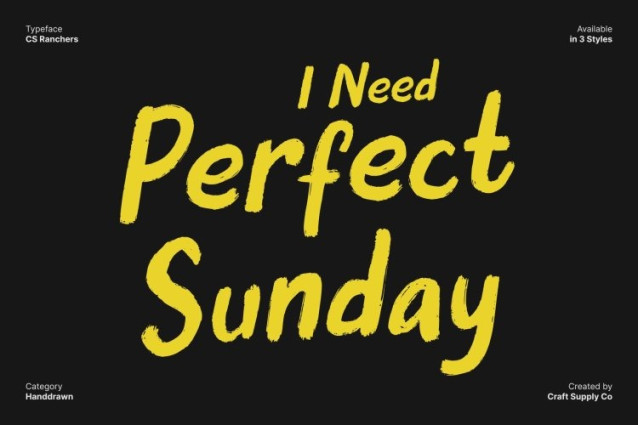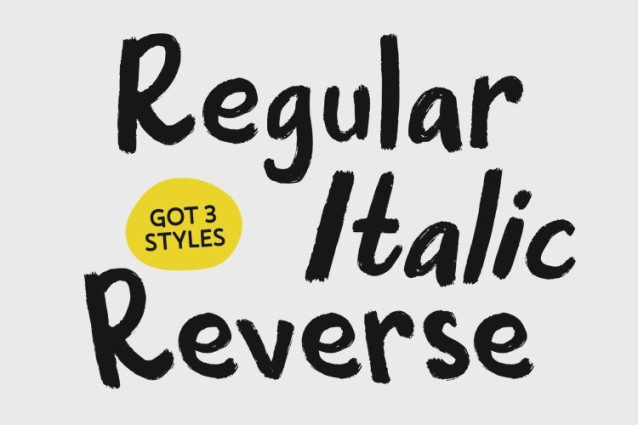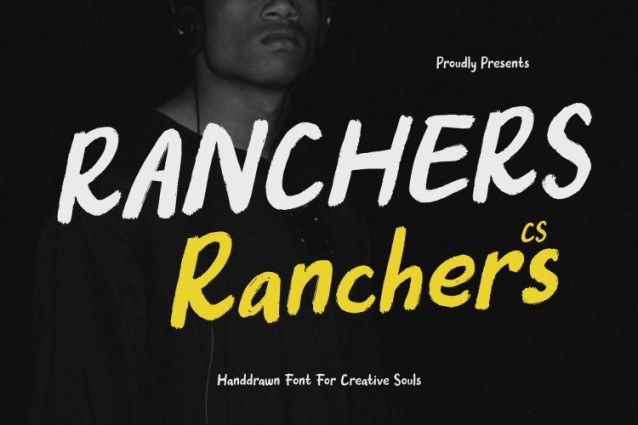
CS Ranchers Font
CS Ranchers Font This is a Brush display font designed to capture the dynamic beauty of natural hand-brushed lettering. Its expressive strokes and textured edges convey artistic energy, giving every design a handcrafted and modern feel. This font brings a bold yet approachable personality, perfect for projects that demand creativity, movement, and visual impact.
Natural Hand-Brushed Texture for Authentic Style
The hand-brushed details of create a genuine and organic look, as if each letter was painted with care. Its texture adds depth and tactile appeal, making designs feel authentic, dynamic, and full of character. The fluid brush style ensures smooth readability while maintaining a visually striking appearance.
Expressive and Artistic for Creative Designs
This font energetic brush strokes make it ideal for projects that require artistic flair. Its bold, flowing forms allow for expressive headlines, standout titles, and visually engaging compositions. The font’s style communicates creativity, passion, and contemporary artistry, helping designs make a memorable impression.
Perfect for Illustrations, Digital Artwork, and Creative Lettering
This font shines in illustrations, digital artwork, creative lettering projects, posters, and branding. Whether designing artistic posters, stylized social media graphics, or hand-brushed logo marks, this font adds personality, vibrancy, and a professional handcrafted feel. This font transforms any project into a visually captivating and expressive piece of art.